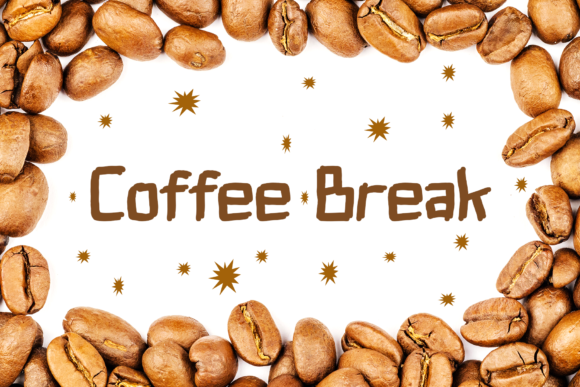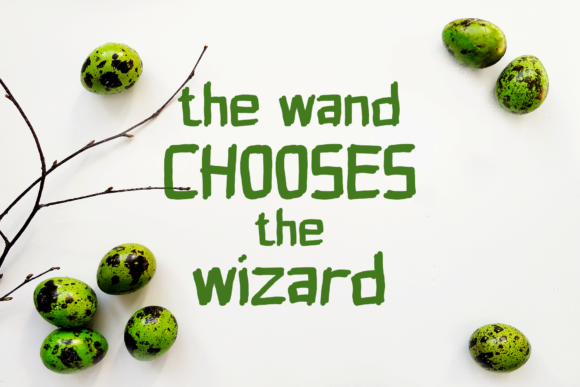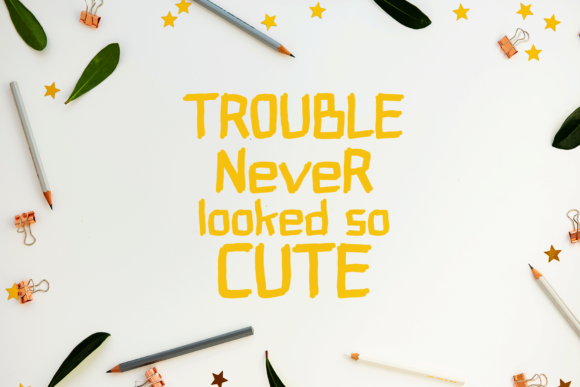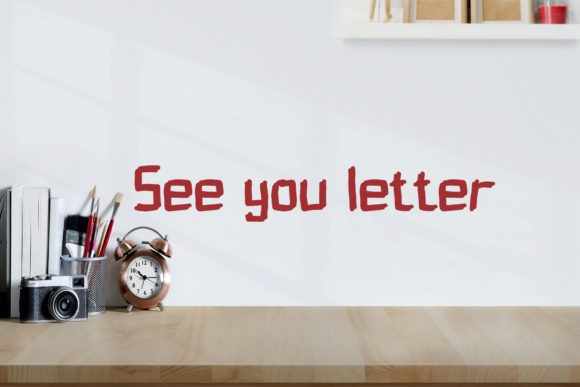
Introduction to Freshest Font
Freshest is a unique display font.
It looks amazing on wedding invitations, thank you cards, quotes, weddings, greeting cards, logos, business cards and more .
Freshest Font offers exceptional quality and versatility, making it a valuable addition to your design toolkit. Whether you’re creating for personal projects or commercial use, Freshest Font delivers professional results.